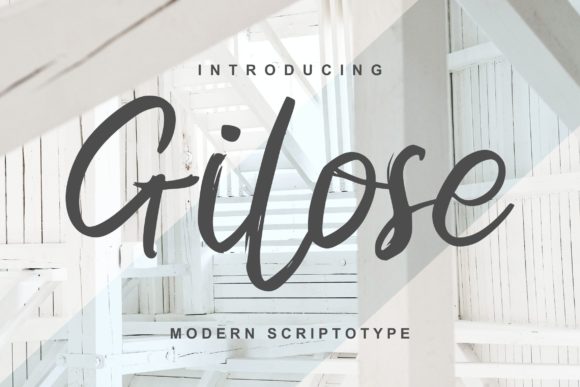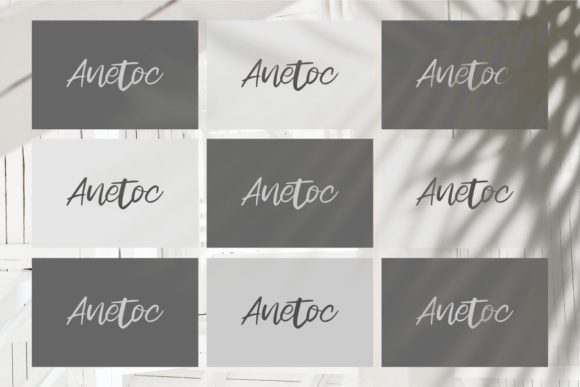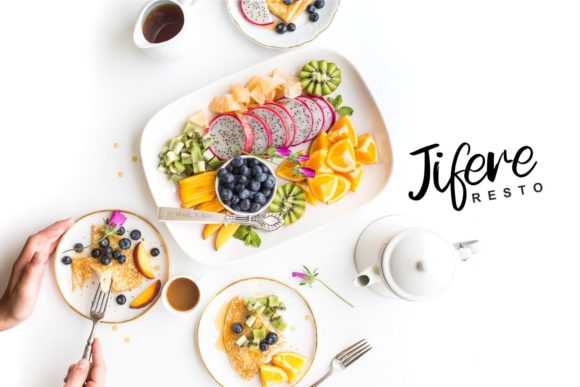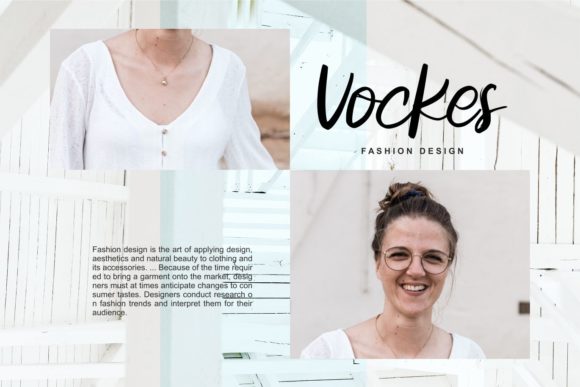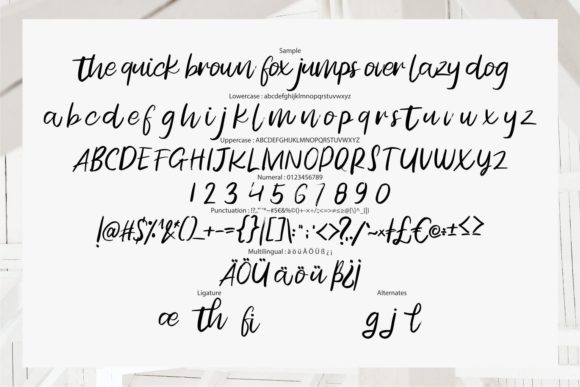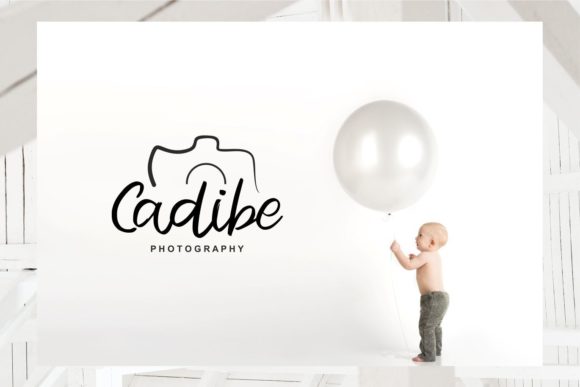
About Gilose Font
Gilose is a lovely and delicate script font that exudes elegance and class. This font was particularly crafted for those who need a beautiful and refreshing look to their designs.